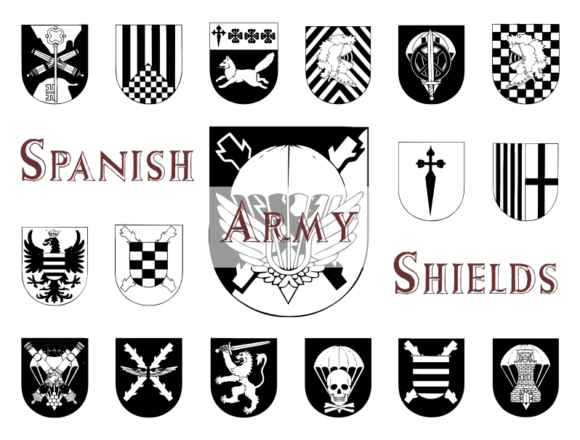
Spanish Army Shields Font
About Spanish Army Shields Font
The Spanish Army Shields are a collection of dingbat designs that feature different types of Spanish army shields. Whether you’re designing a logo for a military themed project or simply want to add a touch of Spanish heritage to your design, these shields are sure to make a statement.
The Spanish Army Shields are a great choice for anyone looking to create a design with a military flair. Whether you’re designing a logo for a veteran’s organization, a military museum, or any other project, these shields are the perfect way to add a touch of tradition and heritage to your design.
One of the best ways to use the Spanish Army Shields is to add a touch of military heritage to your design. Whether you’re creating a logo, a card, or any other visual element, these shields are sure to catch the eye of your audience and instantly convey a sense of tradition and history.
If you’re looking for a dingbat design that will add a touch of military heritage to your design, the Spanish Army Shields are the perfect choice. With their distinctive and historic design, they’re sure to create a memorable and memorable look to any project. Whether you’re looking to convey a message of tradition, legacy, or simply want to pay tribute to a military unit or event, these shields are an incredible asset to your dingbat library and have the potential to elevate any design with a touch of military pride.